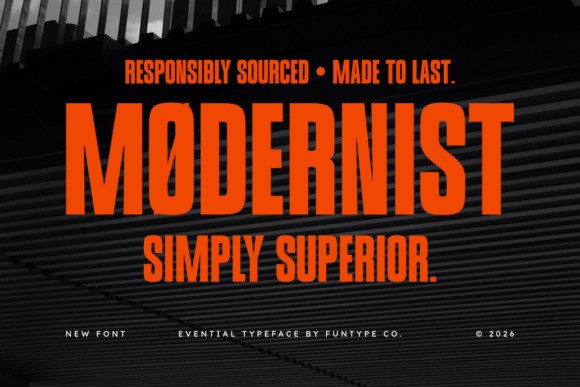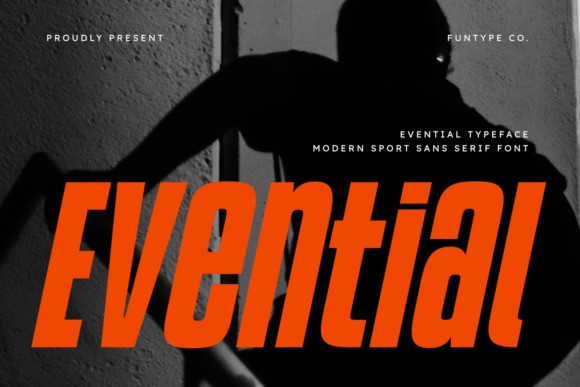
Evential Font
Evential Font is a bold and powerful modern sport sans serif font designed for impactful and energetic typography. With its refined structure and dynamic flow, this font is perfect for strong headlines, professional logos, sports branding, and high-impact advertising. Its confident design gives your visuals a striking, professional, and modern look. Provided in OTF and TTF formats for maximum compatibility across all platforms.